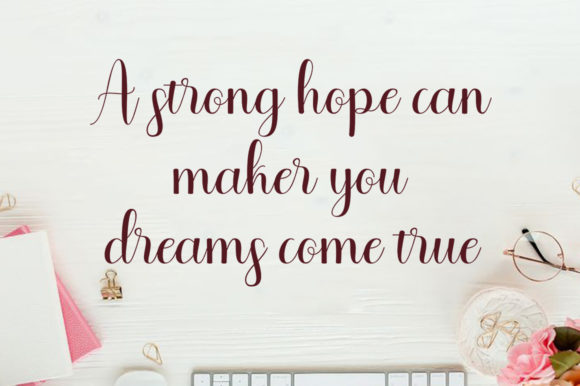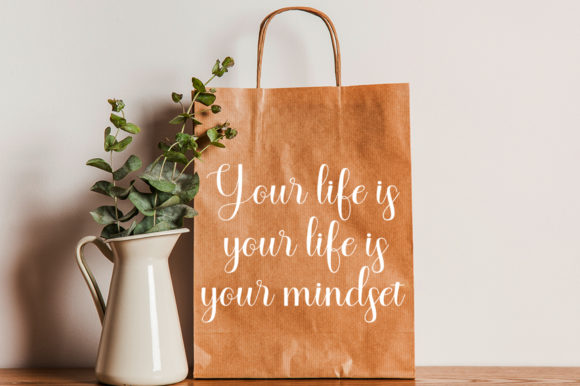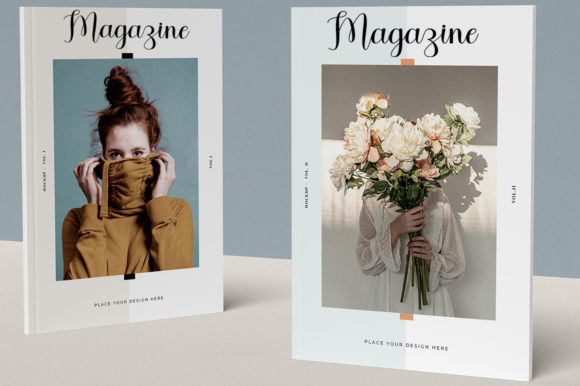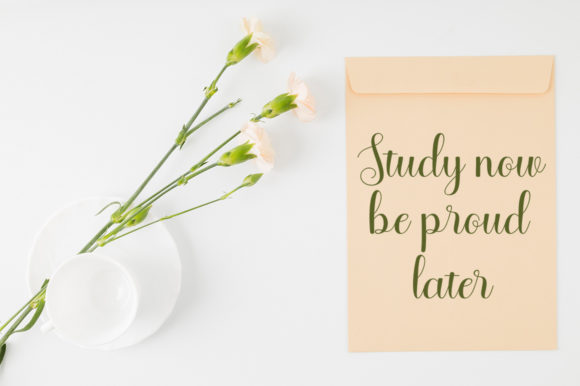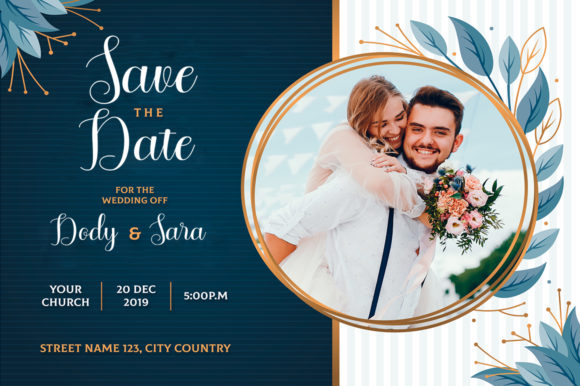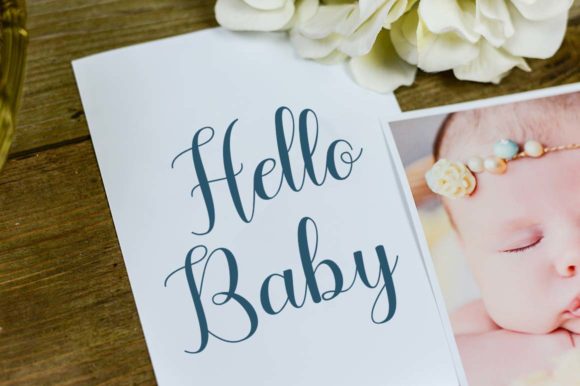
Introduction to Holly Molly Font
Holly Molly is an elegant and romantic script font.
It maintains its classy calligraphic influences while feeling modern and sweet This font is PUA encoded which means you can access all of the glyphs and swashes with ease.